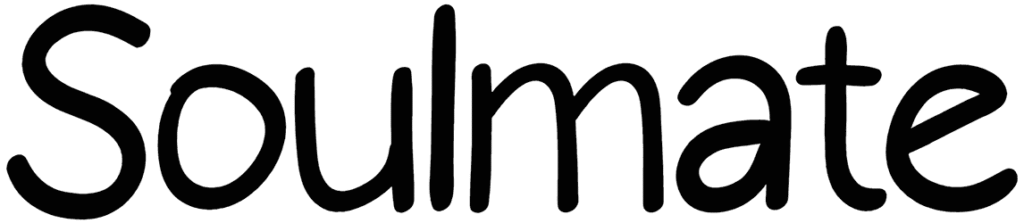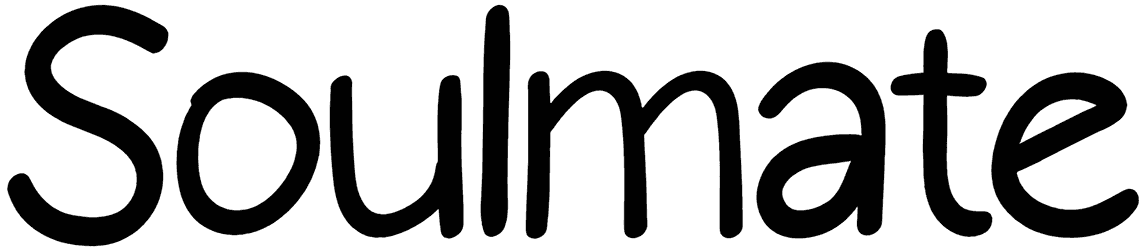
Soulmate Font
Smooth and gentle like the soul, this handwritten font has a minimal and calm emotion. The Soulmate font, with its modern style, could be used for countless layouts from a casual daily Instagram story to a label on a jam jar. Use this delightful script font for your next masterpiece and surprise your followers.